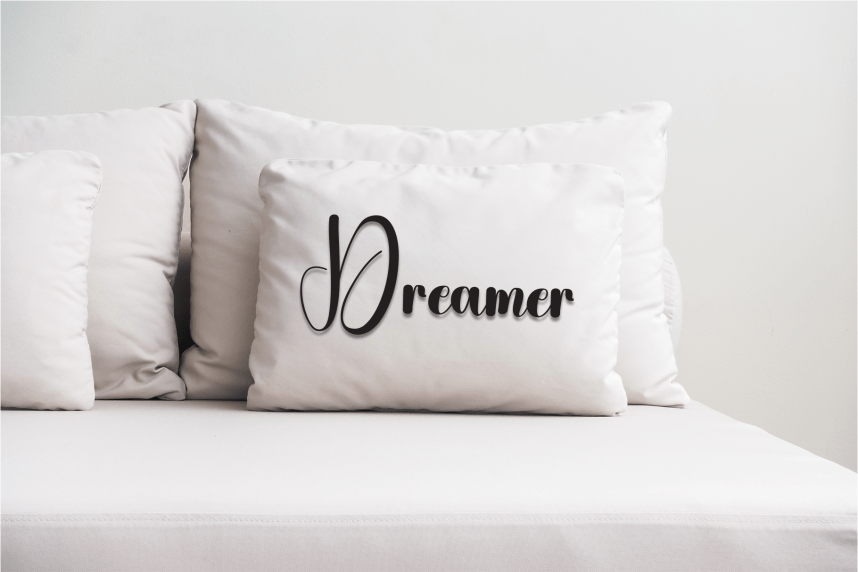
Retro Calligraphy Script Font
Retro Calligraphy Script Font is a sweet and friendly handwritten display font. Cute and fun, this font is ideal for writing wedding invitations, cards, or any other design that might need a playful touch!